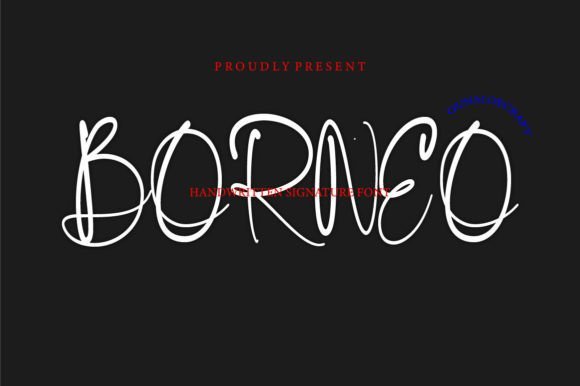
Introduction to Borneo Font
Borneo Font – a new modern handwritten signature font, makes this font looks natural, modern, and perfect for any awesome project.
Borneo is perfect for many different projects such as logos & branding, invitation, stationery, wedding designs, social media posts, advertisements, product packaging, product designs, label, photography, watermark, special events or anything .